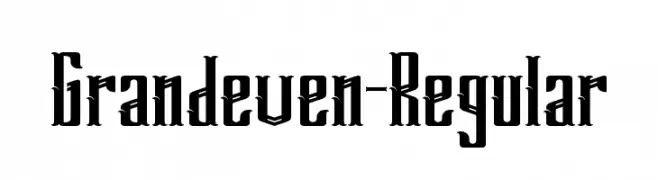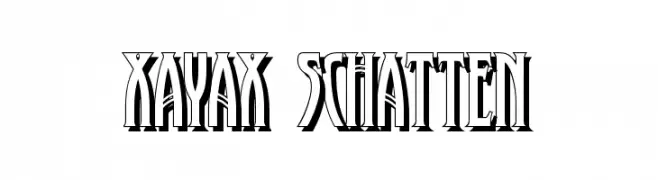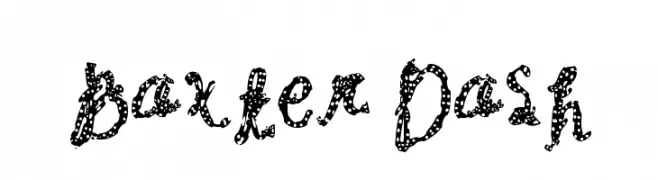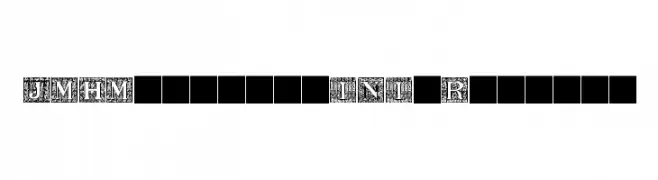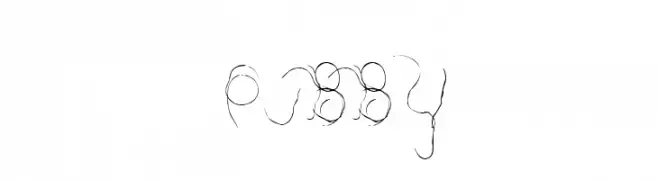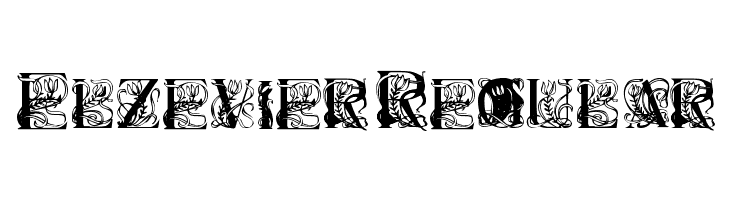
A bold, energetic comic book style font with exaggerated, playful characters.
A bold, modern font with sharp, angular edges and decorative elements.
A bold, decorative font with a shadow effect and angular serifs.
A playful, dotted font with a hand-drawn, whimsical style.
A decorative font with intricate patterns and bold uppercase letters.
An artistic, abstract font with thin, fluid strokes and a modern aesthetic.